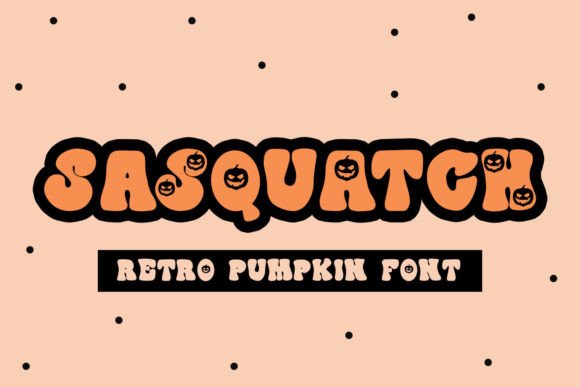
Prepare yourself for the spook-tacular entrance of the Sasquatch Font duo, a font family as rich in character as a steaming cup of pumpkin spice latte on a brisk fall morning. Step into a world where your creative projects transform into spellbinding masterpieces, adorned with the charm and nostalgia of a vintage logo. Unleash your inner artist and watch as the captivating glyphs of Sasquatch weave their magic, turning your designs into mesmerizing works of art.
Express your love for all things retro with this display and decorative font pair, expertly crafted by the creative minds at FreelingDesignHouse. Sasquatch is the perfect companion for your fall and Halloween projects, adding a touch of whimsy and wonder to your invitations, posters, greeting cards, and social media posts. Its playful personality and vintage-inspired aesthetics will leave your audience spellbound, eager to uncover the stories hidden within your designs.
Picture this: your latest Halloween invitation, adorned with the Sasquatch Font, invites your friends and family to a night of spooky fun. The words "You're Invited" dance across the page, each letter a mini-masterpiece, evoking a sense of mystery and excitement. As your guests RSVP, they can't help but feel the anticipation building, knowing that they are in for a treat.
Or perhaps you're working on a vintage-themed logo for your small business. Sasquatch Font adds an instant touch of authenticity and charm, transporting your customers back to a simpler time. The unique letterforms and playful swashes create a logo that stands out from the crowd, leaving a lasting impression on potential clients.
Let Sasquatch Font be the muse that breathes life into your creative projects. Its versatility and timeless appeal make it the perfect choice for a wide range of applications, from personal branding and social media graphics to marketing materials and product packaging. You'll find yourself reaching for Sasquatch again and again, its pumpkin-inspired charm adding a touch of magic to everything you create.
And don't just take our word for it, join the chorus of satisfied customers who have already fallen under the spell of Sasquatch Font. They rave about its ability to transform ordinary designs into extraordinary creations, adding a touch of whimsy and sophistication that sets their work apart.
So, embrace the magic of Sasquatch Font and let your creativity run wild. Add it to your fonts library today and watch as your projects come alive, filled with the charm and personality that only Sasquatch can bring. Don't miss out on this typographic delight, the perfect addition to your creative arsenal.